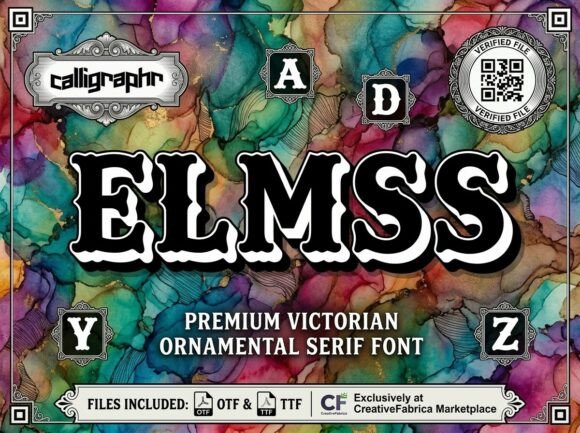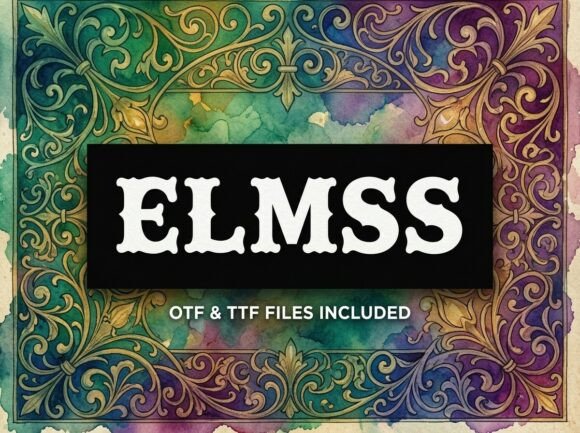
Head for the Frontier with Elmss Font: A Rugged Display Typeface
I’ll never forget the design struggle I faced while working on a western-themed restaurant logo project. My client wanted a font that embodied the spirit of the Wild West, but I was coming up empty-handed. That was until I stumbled upon Elmss, a rugged display typeface that instantly transported me to the dusty streets of a 19th-century cowboy town.
With its bold structural presence and rhythmic old-world balance, Elmss is the perfect choice for independent ranch branding, western-themed restaurant logos, rustic woodwork catalogs, and high-impact social media headers. In this article, we’ll dive into the world of Elmss, exploring its features, uses, and some amazing alternatives.
A Personal Review of Elmss Font
What I Love About Elmss ✨
- ✅ Unique Waisted Middle: The distinctive “waisted” middle of Elmss’s letterforms gives it a one-of-a-kind look that’s reminiscent of vintage saloon signage and antique wanted posters.
- ✅ Heavy Slab-Serif Letterforms: The bold, slab-serif design makes Elmss perfect for headlines and titles that demand attention.
- ✅ OpenType Features: Elmss comes with a range of OpenType features, including stylistic alternates and glyphs, that allow for endless creative possibilities.
- ✅ High-Impact Visuals: Whether you’re designing a logo, poster, or social media header, Elmss is sure to make a statement.
While Elmss is an amazing font, it’s not without its quirks. For example:
- 🤔 Limited Use in Body Text: Due to its bold design, Elmss is best suited for headlines and titles. It may not be the best choice for body text or long-form content.
- 🤔 Requires Careful Kerning: As with any font, careful kerning is essential to ensure that Elmss looks its best.
The Backstory of Elmss Font
Elmss was designed by a team of typographers who were inspired by the rugged, wild west spirit of the American frontier. They wanted to create a font that captured the essence of vintage saloon signage and antique wanted posters.
The design process involved extensive research into the typography of the Wild West era. The team poured over old posters, wanted signs, and other historical documents to get a sense of the letterforms and typography that were popular during that time.
Q: What is Elmss font?
A: Elmss is a rugged display typeface that’s inspired by vintage saloon signage and antique wanted posters.
Q: What is Elmss best used for?
A: Elmss is perfect for independent ranch branding, western-themed restaurant logos, rustic woodwork catalogs, and high-impact social media headers.
Q: Can I use Elmss for body text?
A: While Elmss can be used for body text, it’s best suited for headlines and titles due to its bold design.
Q: Does Elmss come with OpenType features?
A: Yes, Elmss comes with a range of OpenType features, including stylistic alternates and glyphs, that allow for endless creative possibilities.